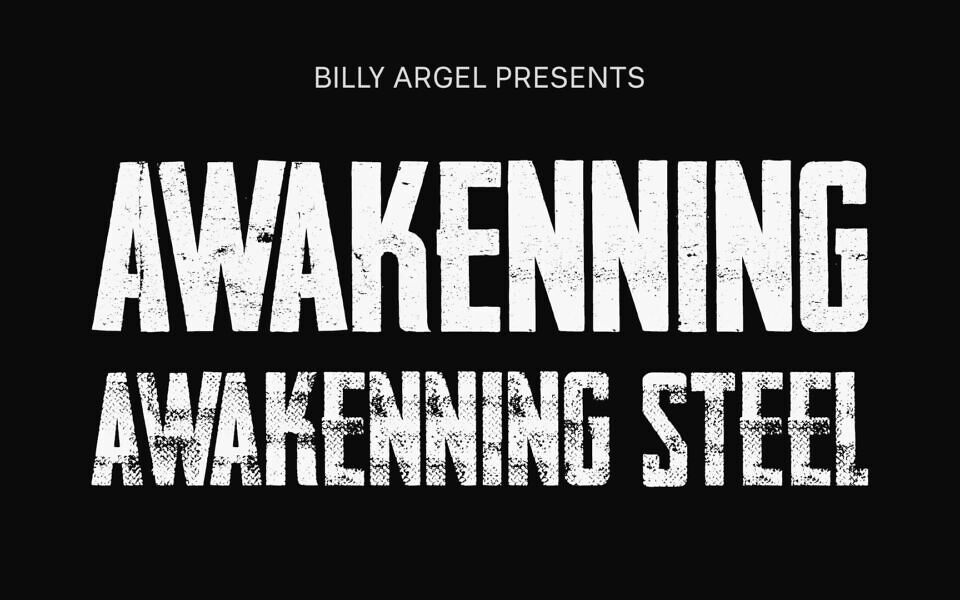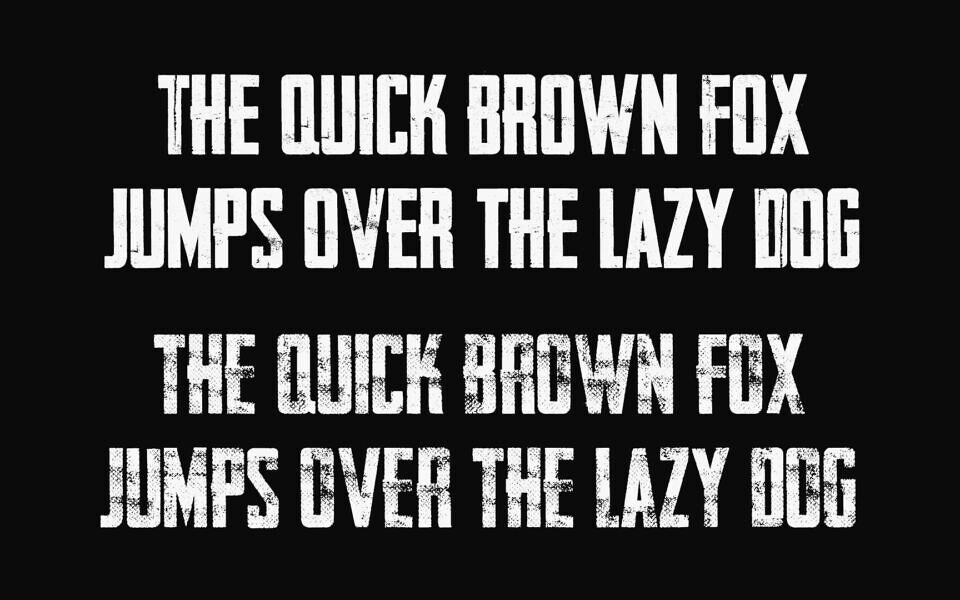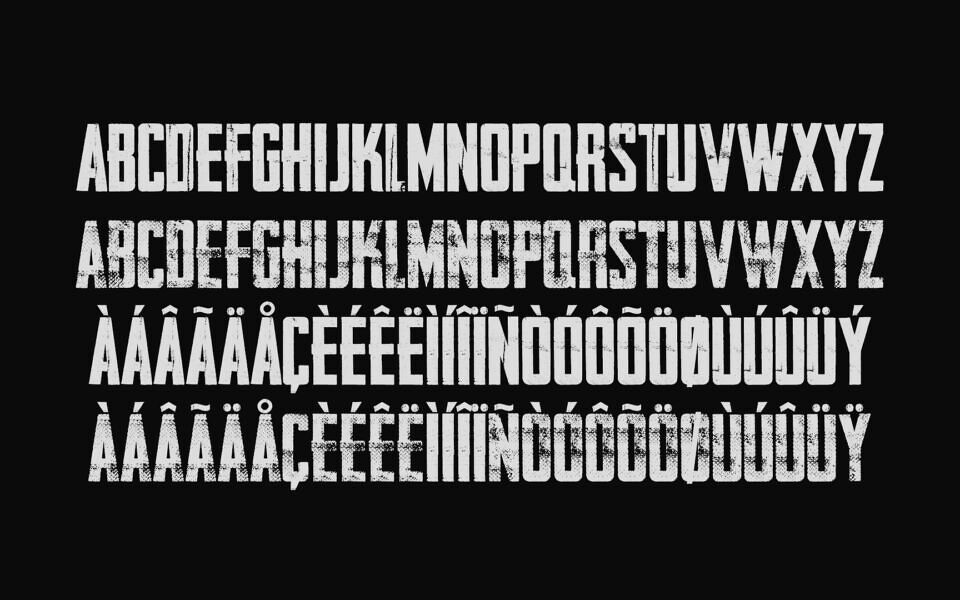
Awakenning is a high-impact, distressed sans-serif typeface designed by Billy Argel. Defined by its rugged, “eroded” aesthetic, it brings an intense industrial energy to any design. Its bold, weathered characters are ideal for aggressive branding, rock-themed posters, and high-contrast logos.
The font features a textured, worn-out look that captures raw strength and urgency, and includes Awakenning Regular and Awakenning Steel.